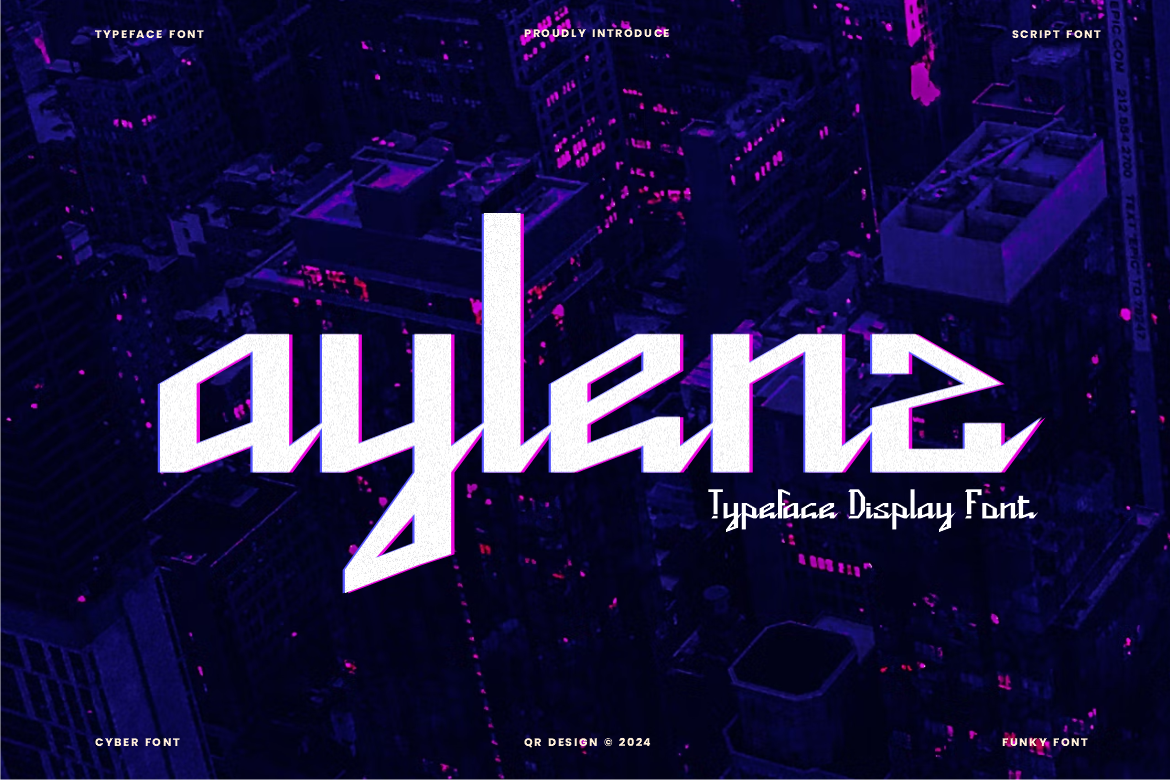
Aylenz - Script Typeface Font
Aylenz - Script Font is a bold and authentic display font. The font is suitable for any branding project like poster, logo, sport, and many more. Outstanding in a wide range of contexts.